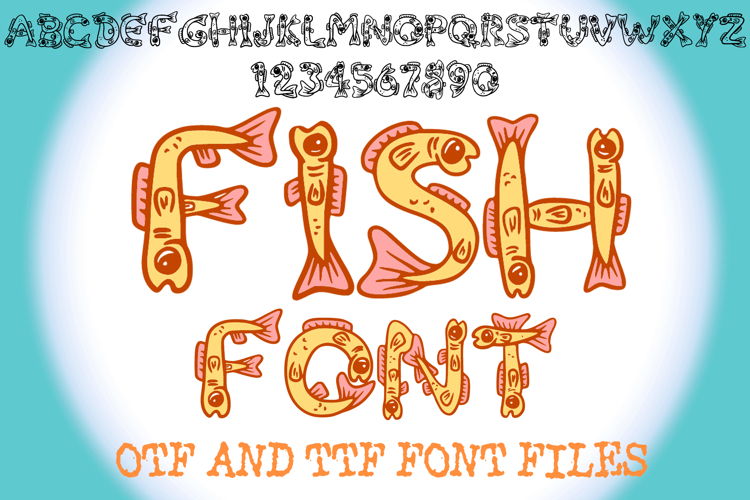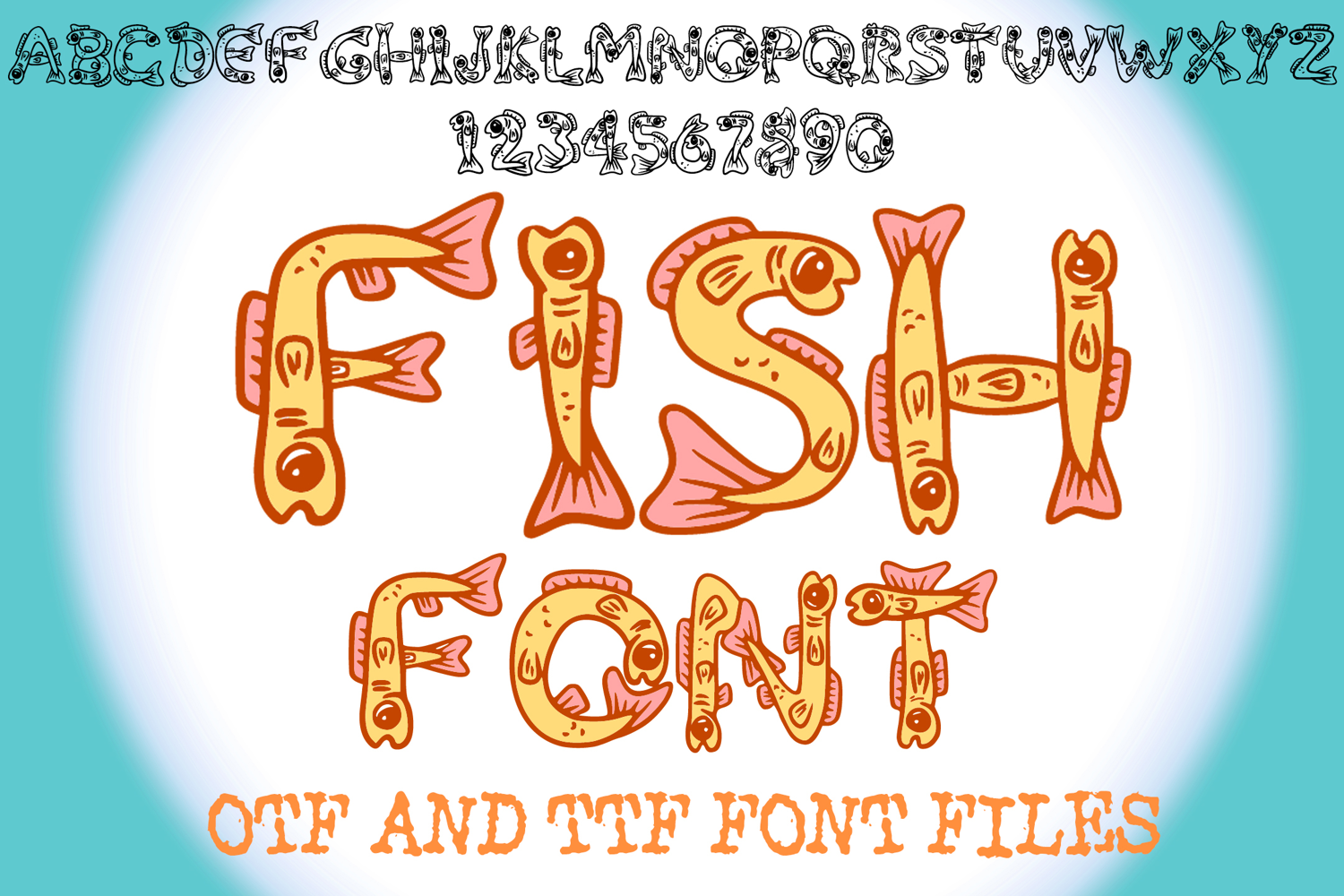
Fish Lettering ABC Text Font Alphabet OTF Goldfish Type IllustrationÂ
A fun style font where you can create your own words and colour them to your vision!